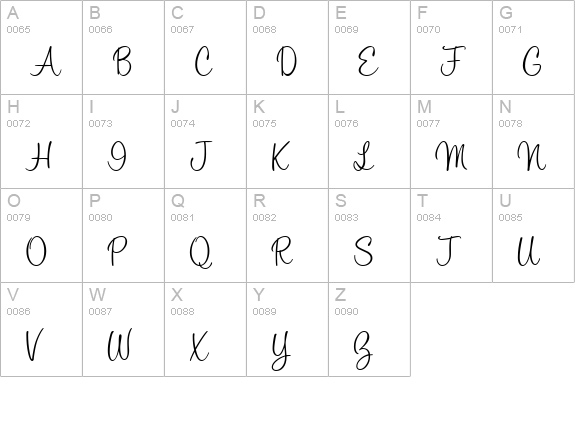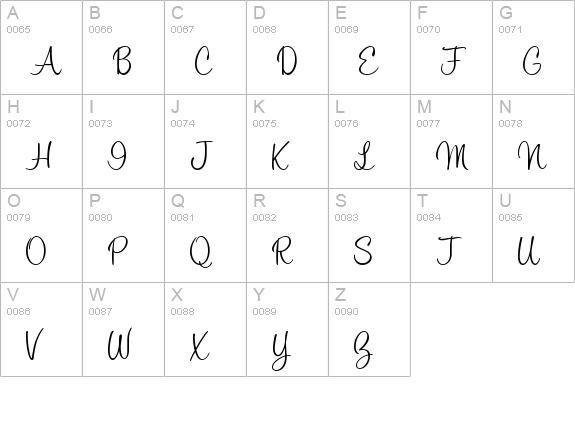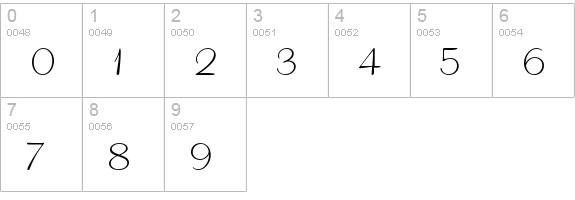
TamarilloJF Font Details
TamarilloJF is a beautifully designed font that effortlessly combines elegance and modernity. Its sleek lines and delicate curves make it an ideal choice for a wide range of design projects, whether it's branding, packaging, or editorial design. The unique letterforms of TamarilloJF exude a sense of confidence and sophistication, instantly catching the eye and leaving a lasting impression. But what sets TamarilloJF apart is not just its stunning aesthetics, but also the fact that it is available free of charge. Yes, you read that right! TamarilloJF font is freely available to download at FontsMarket.com, making it accessible to designers and creatives of all backgrounds. Whether you're a seasoned professional or just starting out, TamarilloJF offers a world of possibilities without putting a dent in your budget. With TamarilloJF, you can effortlessly elevate your designs to new heights. Its versatility allows it to adapt to various styles and contexts, ensuring that your message is conveyed with utmost finesse. Whether you're aiming for a bold headline or a refined body text, TamarilloJF has got you covered. So why wait? Embrace the beauty and functionality of TamarilloJF font today and let your creativity soar. Download it for free at FontsMarket.com and unlock a world of endless design possibilities.